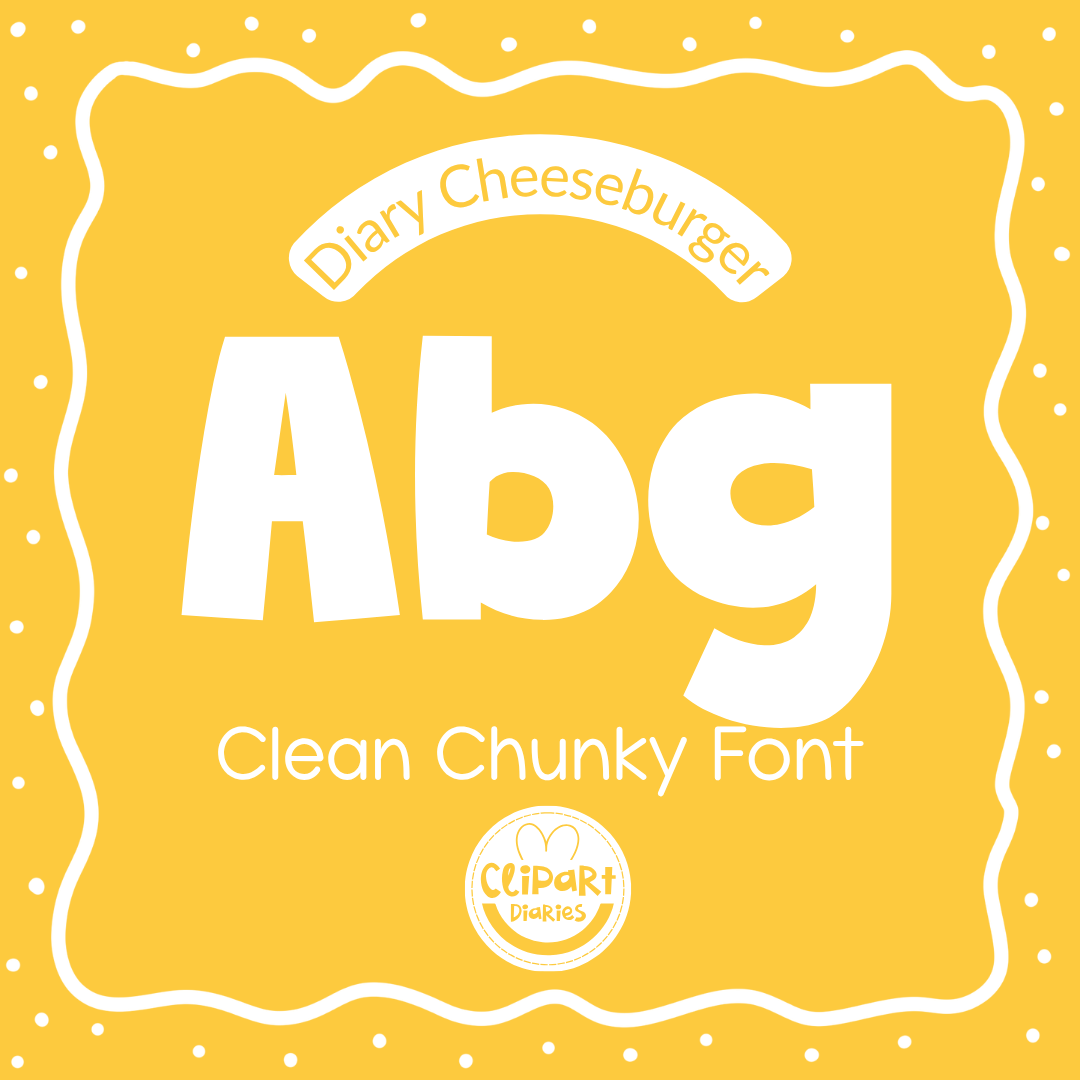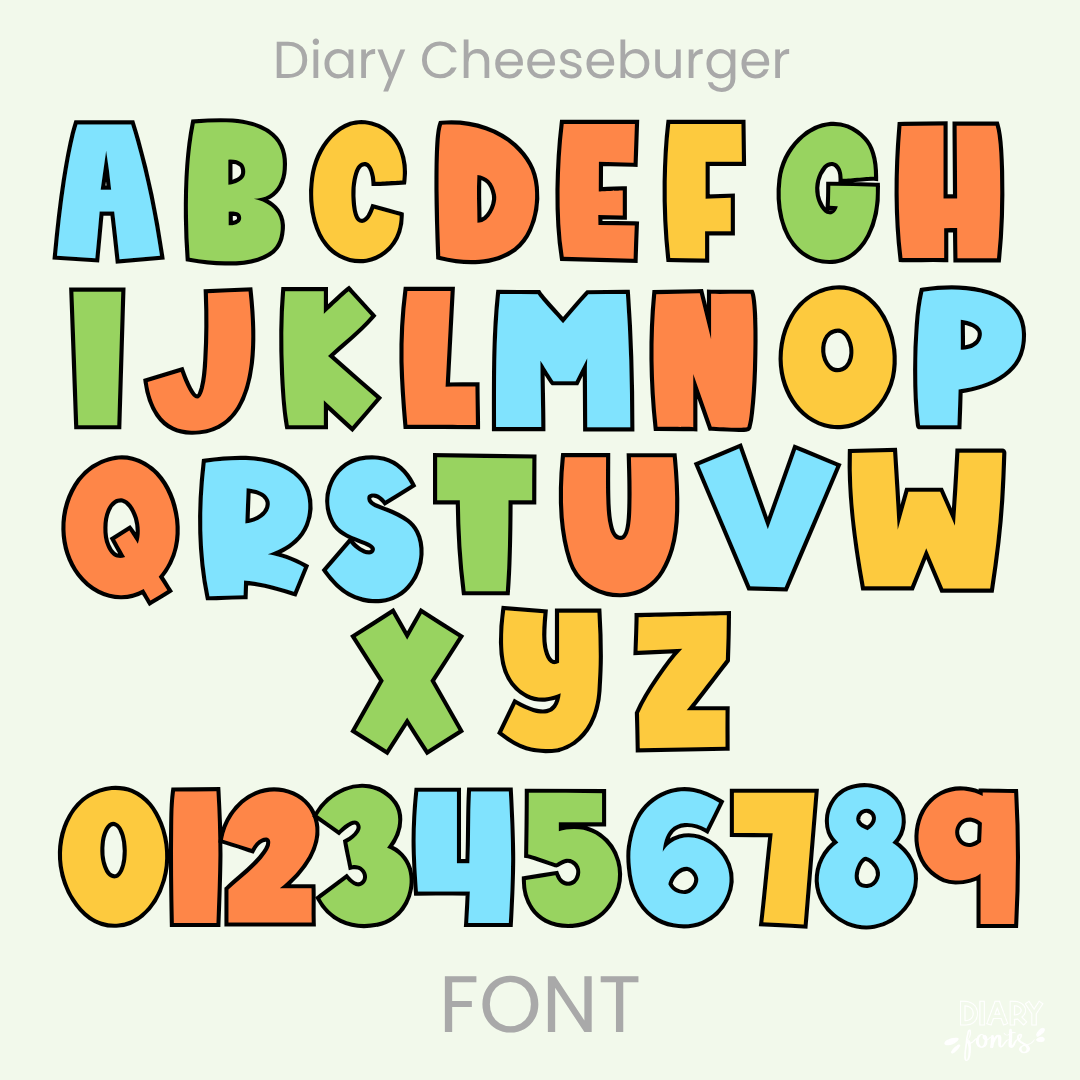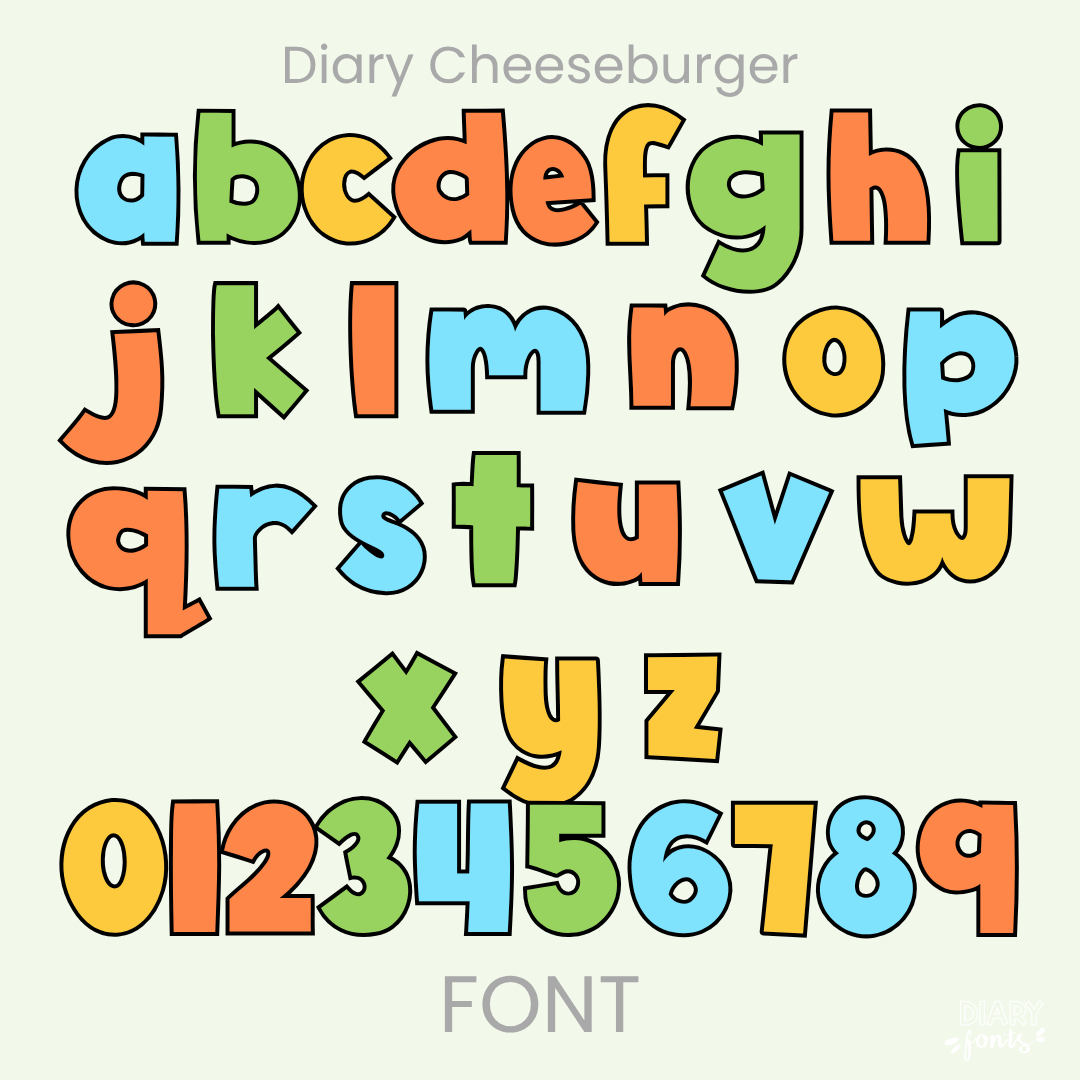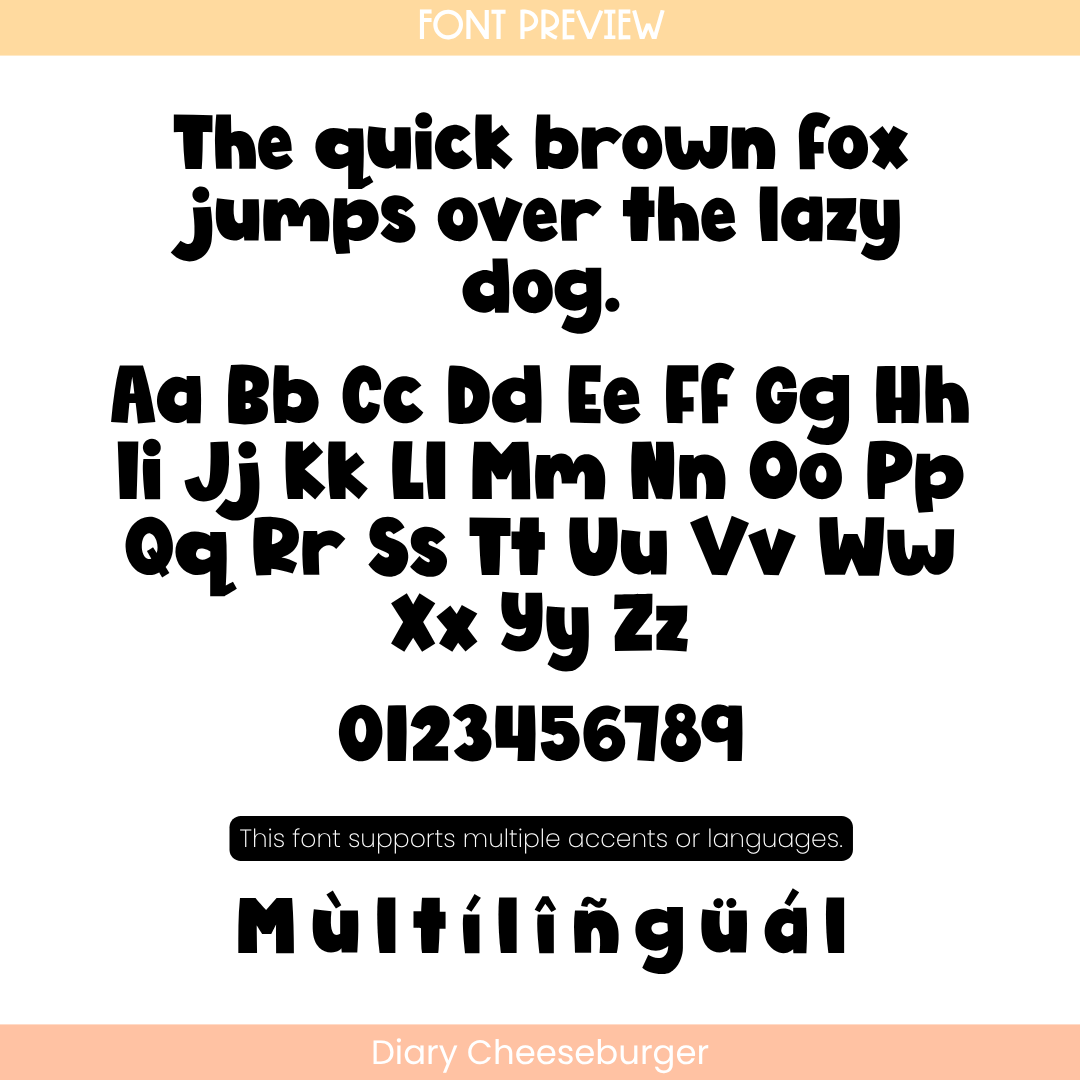
If you need a font that makes a statement while staying easy to read, Diary Cheeseburger is a perfect choice. It features thick, rounded letterforms with a solid weight that stands out beautifully on digital slides and printed worksheets. This chunky style is especially great for primary classroom headers, eye-catching bulletin boards, and cover pages. The font includes a full set of uppercase and lowercase letters, numbers, and supports multiple languages with various accents. It is ready to use in Canva, MS Office, and Adobe Apps, and it is fully compatible with iPad tools like GoodNotes and Procreate. Whether you are creating student resources or products for your shop, this font adds a playful and polished look to your work.